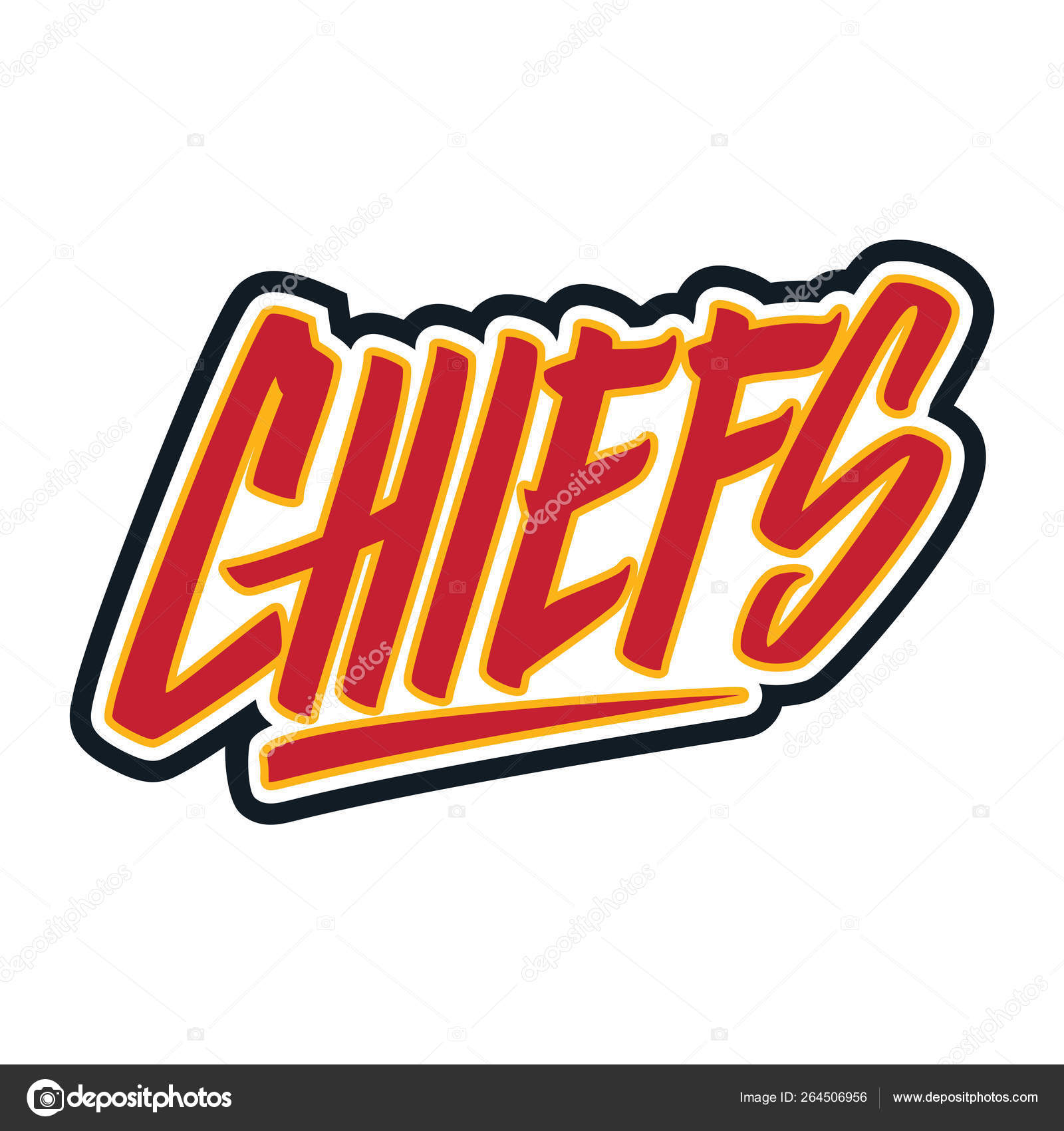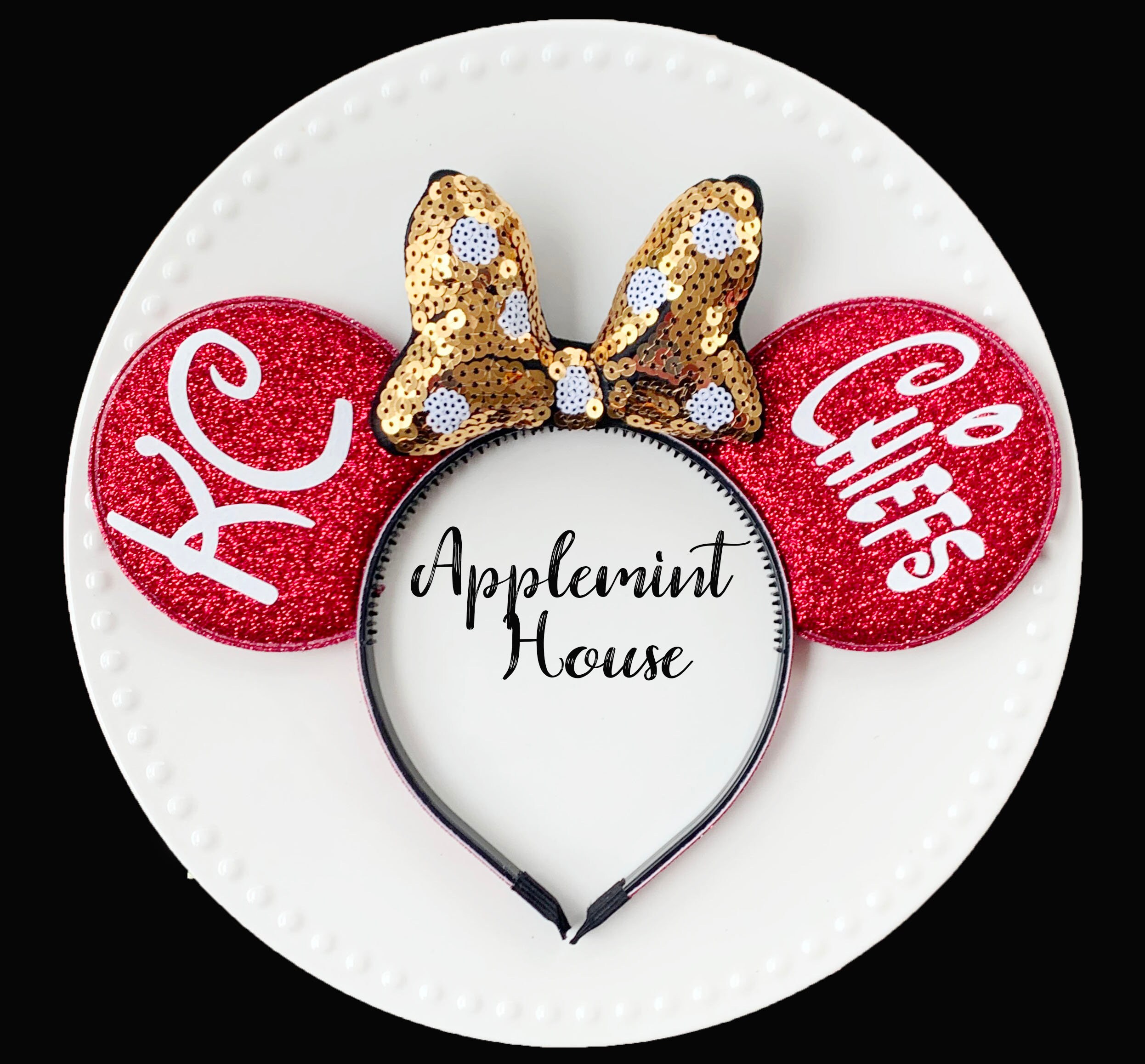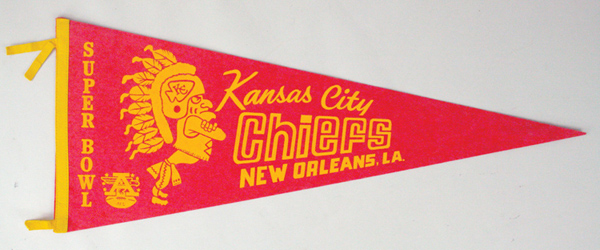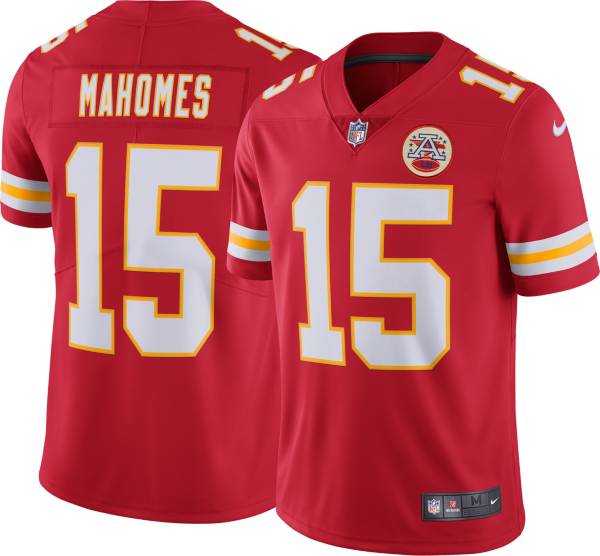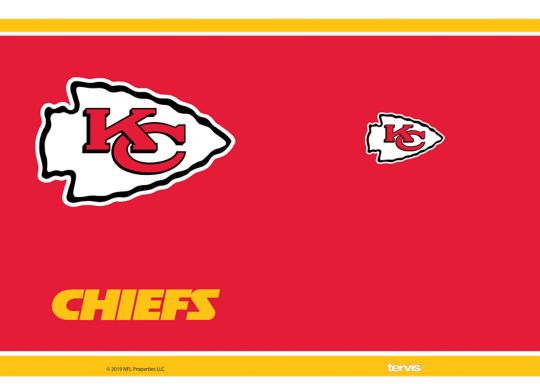
Lettering Kc Chiefs Font. Kansas City Chiefs Font help me please tanks.
Lettering kansas city chiefs font. Sports logos are generally custom designs. Futura Pro ExtraBold Oblique Download Futura Pro ExtraBold Oblique. 50 50 Raffle Kansas City Chiefs Chiefs Com.
The Kansas City Chiefs just concluded their 2020 season with a disappointing performance in Super Bowl LV against eventual champion Tampa Bay Buccaneers. This one uses a _C_ and _S_ that look somewhat similar to how Bauhaus would look if it was sloped.